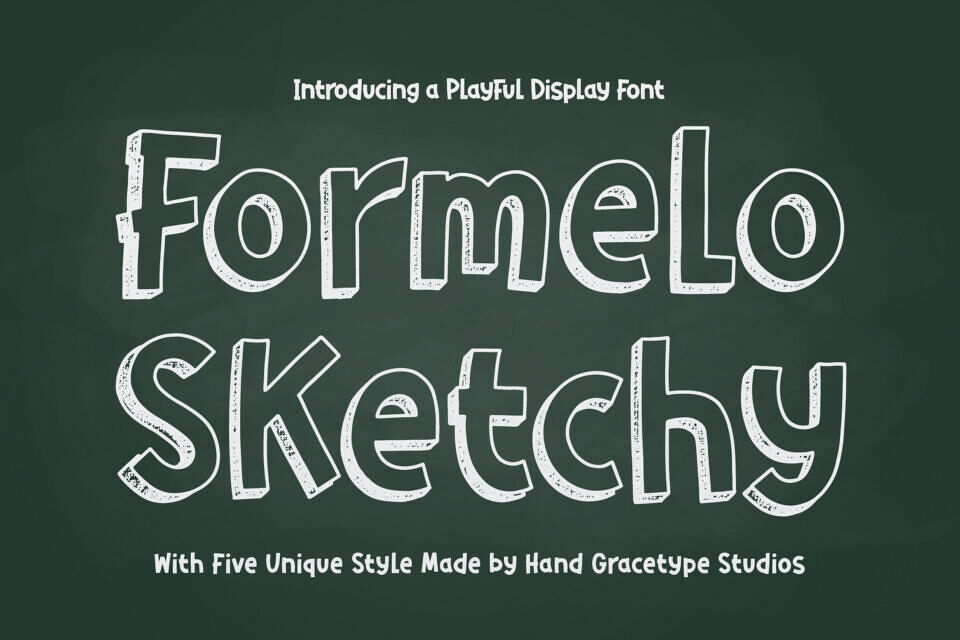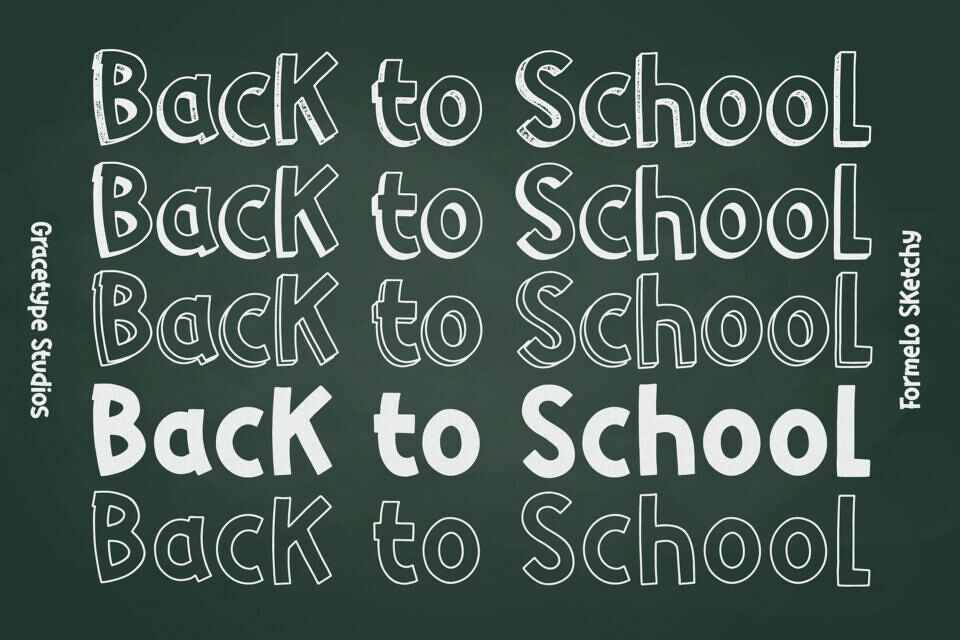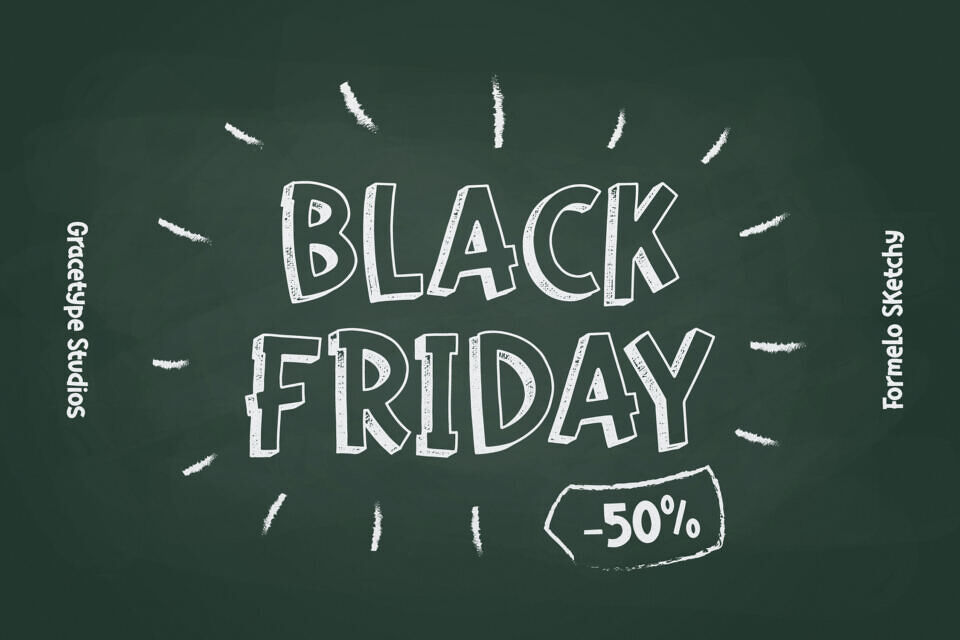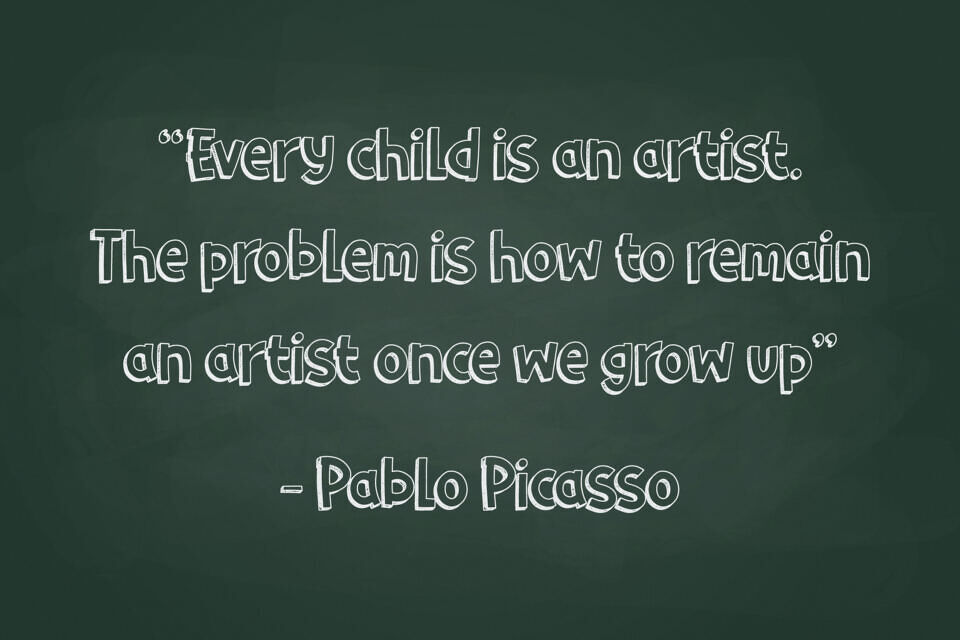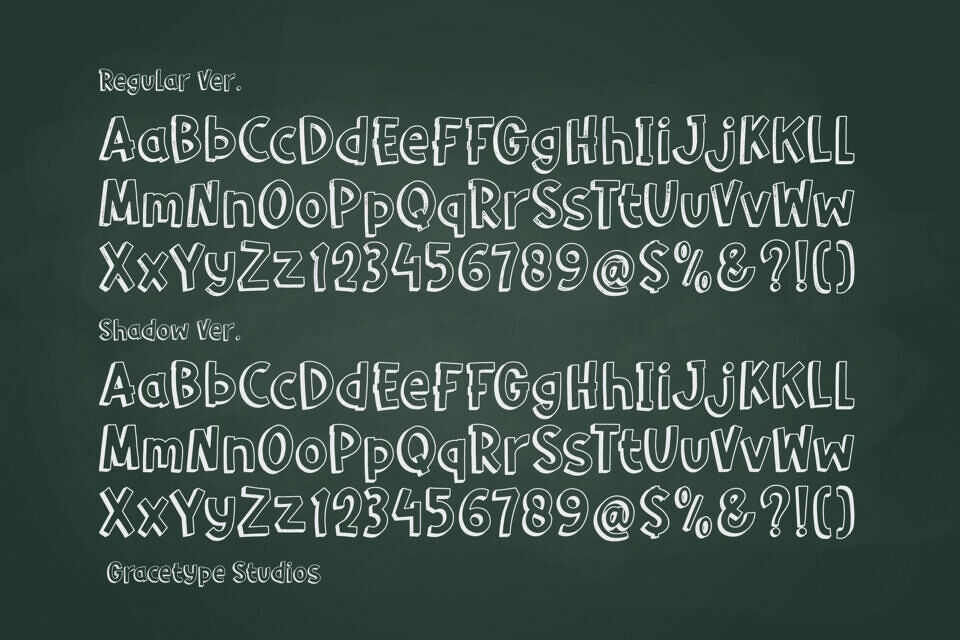
Bring your ideas to life with Formelo Sketchy, a vibrant display typeface that captures a “hand-drawn-and-imaginative” soul. This font features bold, 3D block letterforms with a charming “sketched” texture, mimicking the look of chalk on a blackboard or a rough pencil draft.
With its thick outlines and rhythmic, casual depth, Formelo Sketchy is the premier choice for independent educational branding, creative workshop logos, children’s book covers, and high-impact “back-to-school” social media headers.